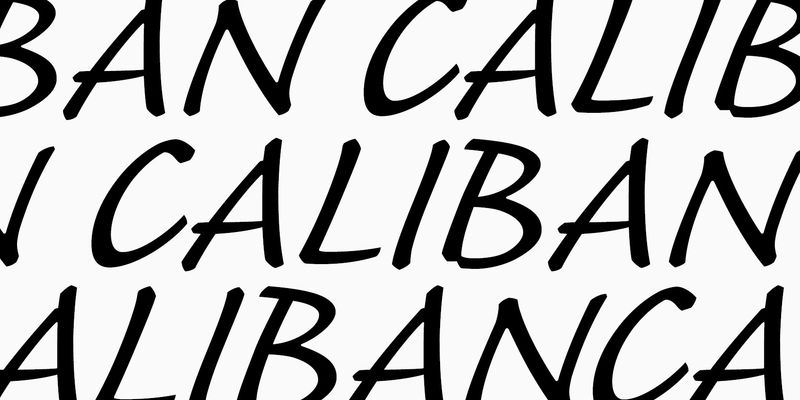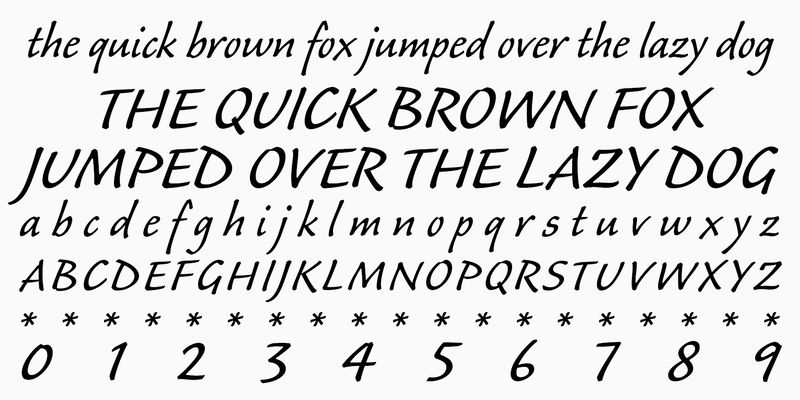
America’s most famous carver of inscriptions, including those at the John F. Kennedy Memorial in Arlington National Cemetery, John Benson began Caliban by writing with a blunt-point pen on rough paper. He focused on the overall pattern and motion of the characters in text, rather than on individual letterforms. Named after Shakespeare’s beast slave in The Tempest, Caliban represents Benson’s attempt to tame crudely written letters into service. The weight distribution and letter heights of this 1995 Adobe Originals release vary, but the active, sloping shapes keep the lines cohesive in informal text. Caliban also provides a dynamic appearance when set in casual headlines.